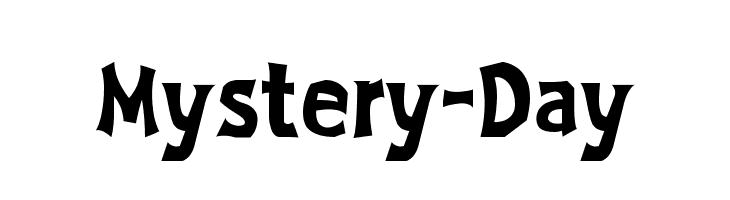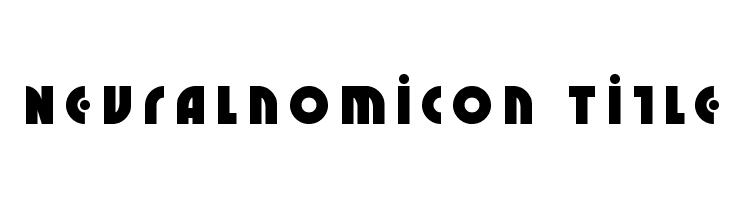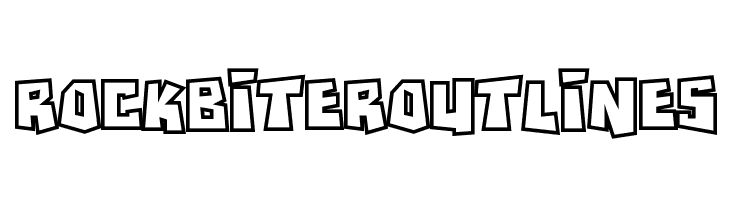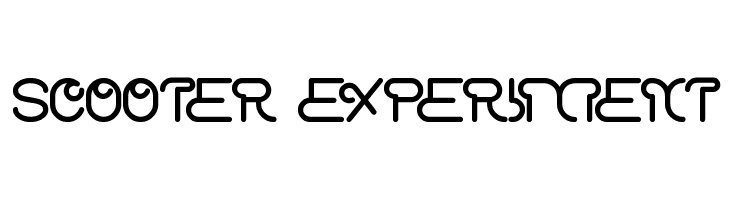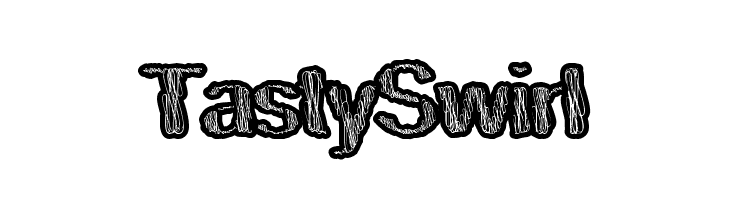
( Fonts by weknow - Wino S Kadir )
A playful, interconnected font with rounded strokes and a modern, whimsical style.
( Fonts by Vladimir Nikolic )
A bold, geometric font with a futuristic and industrial design.
( Genilson L. Santos )
A bold, modern font with clean lines and rounded edges, perfect for impactful designs.
( JOEBOB graphics - Joe vanderHam - www.joebob.nl )
A bold, hand-drawn font with dynamic and expressive strokes.
( Fonts by PutraCetol Studio )
A playful and whimsical font with dynamic, irregular letterforms.
A playful, icy font with bold, textured letters resembling snow-covered surfaces.
( Fonts by Meir Sadan - www.sadan.com OFF SITE )
A bold, pixelated font with a retro, digital aesthetic.
A bold, geometric font with a futuristic and decorative style.
( Luc Mahler )
A modern geometric font with sharp angles and clean lines.
( Robothaus - Patrick McGrath - robothaus.com )
A playful, handwritten font with rounded, consistent strokes and good readability.